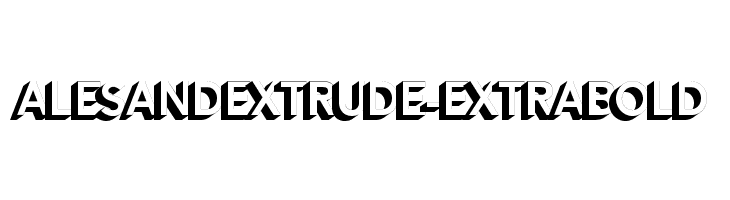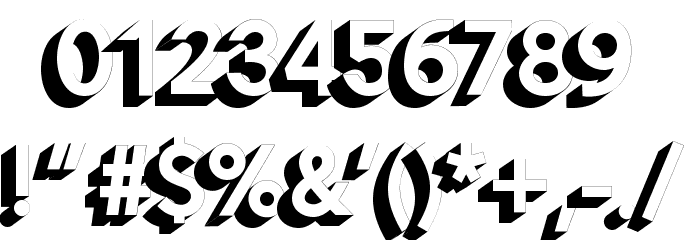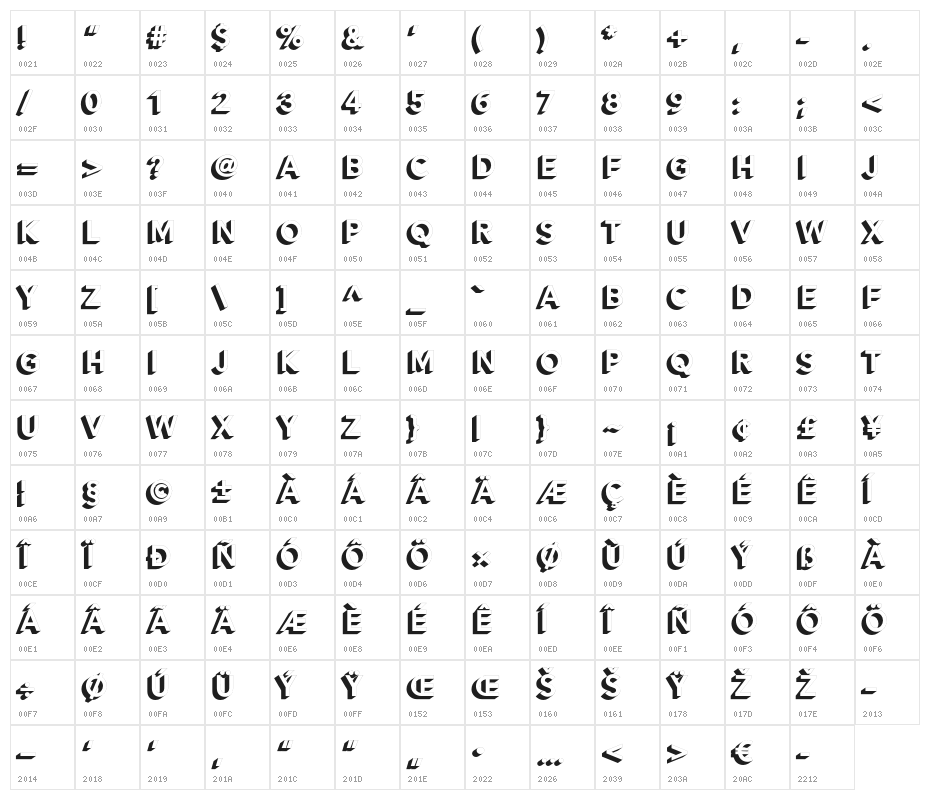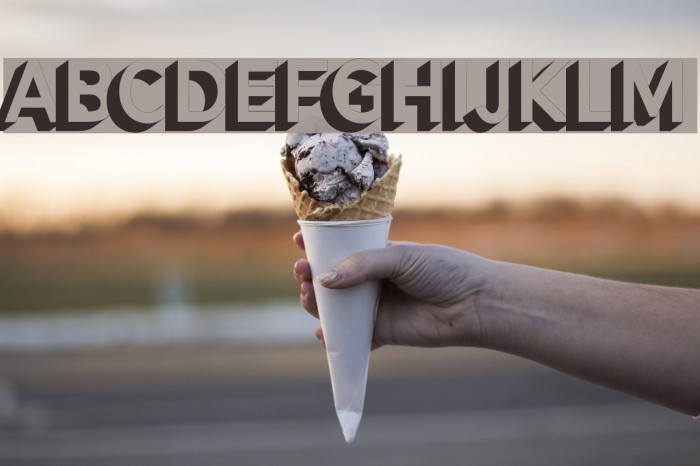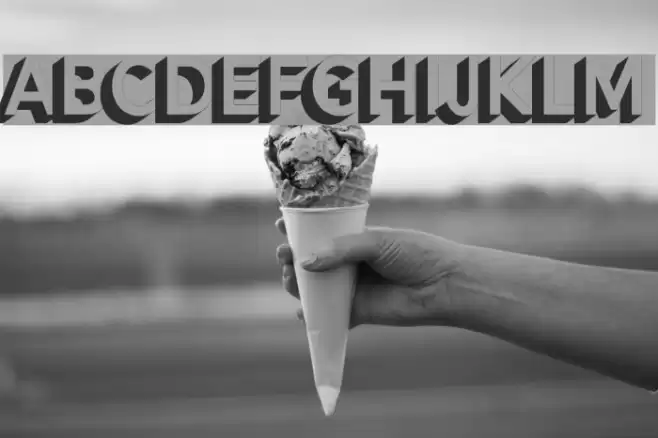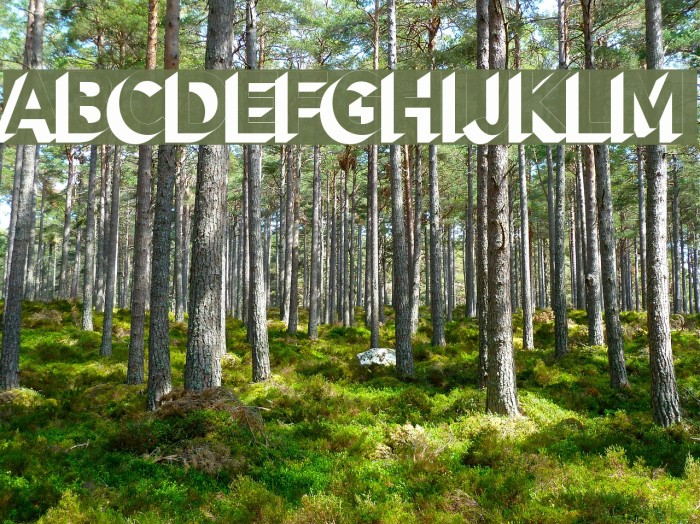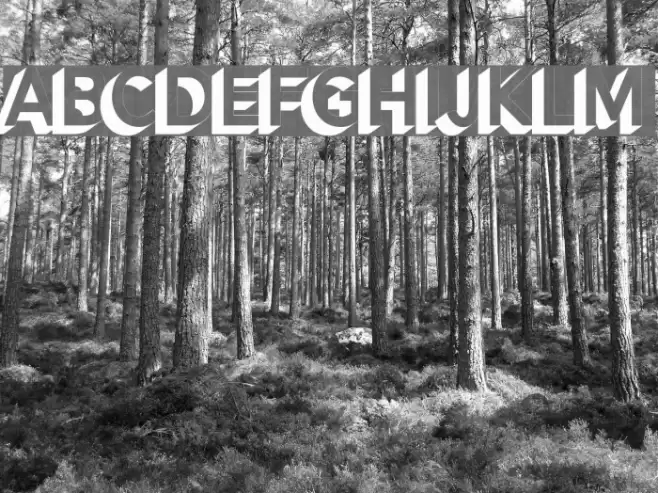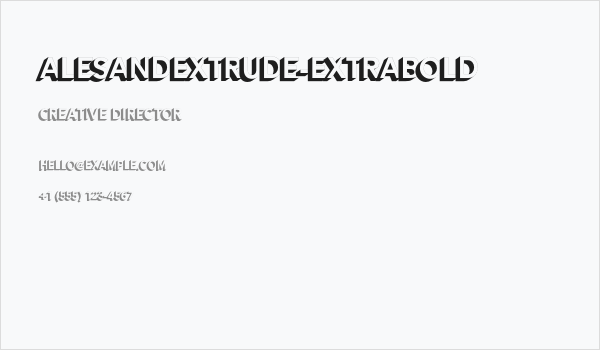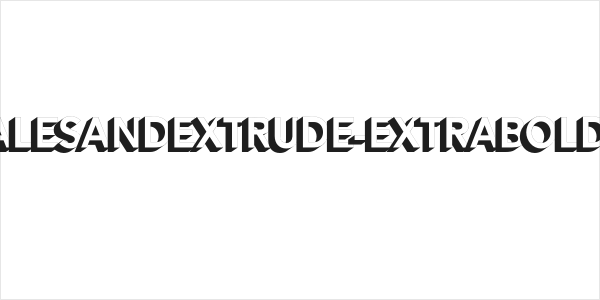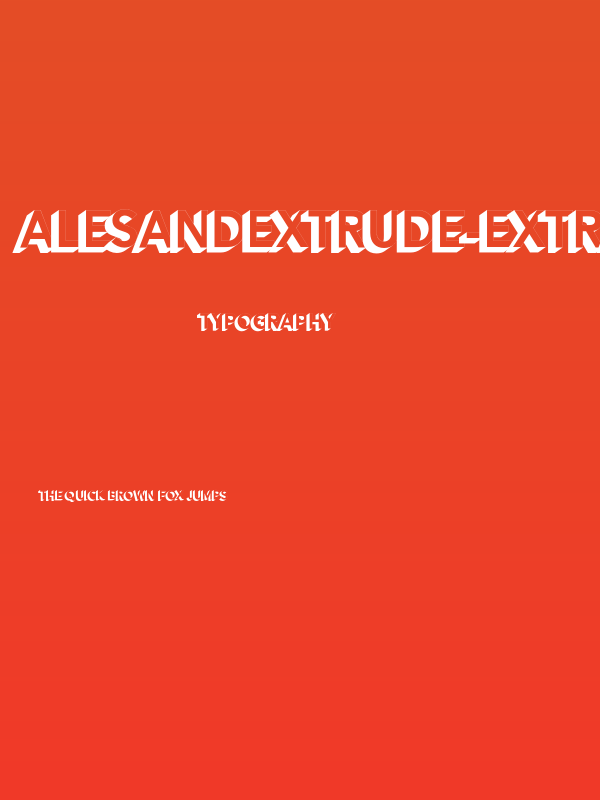
AlesandExtrude-ExtraBold Font
AlesandExtrude-ExtraBold Description
This font features a bold and striking 3D extruded effect, giving each character a sense of depth and dimension. The letters are uppercase and display a geometric, sans-serif style with clean lines and sharp angles. The shadowing effect adds a dramatic flair, making it ideal for eye-catching designs. The numbers and special characters maintain the same bold and extruded style, ensuring consistency across all elements. This font is perfect for projects that require a strong visual impact.
Proposed ProjectsIdeal for posters, headlines, logos, and any design needing a bold statement.